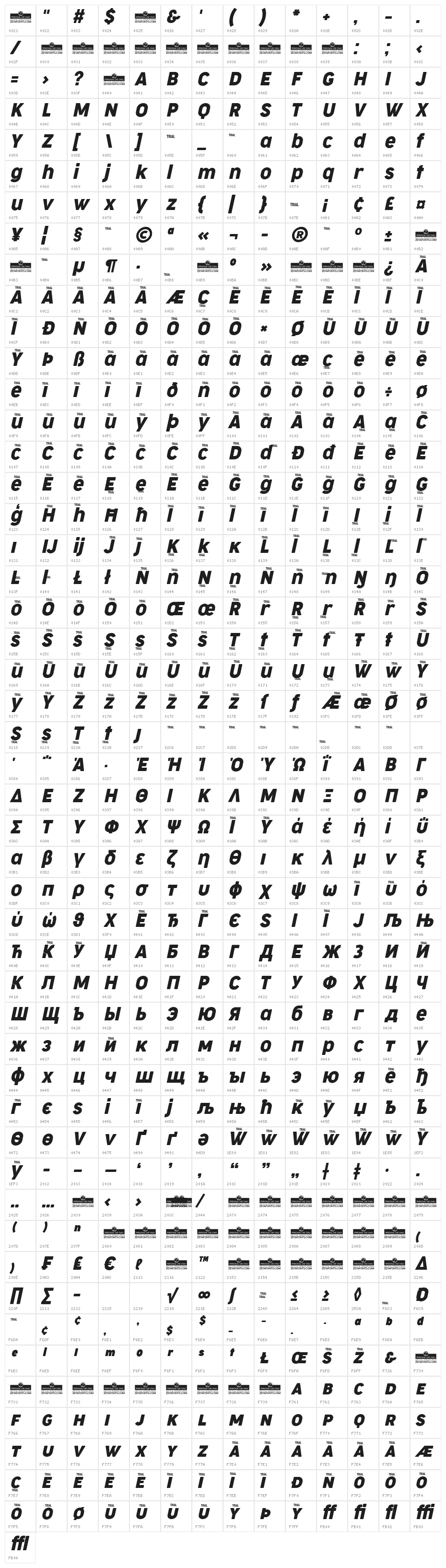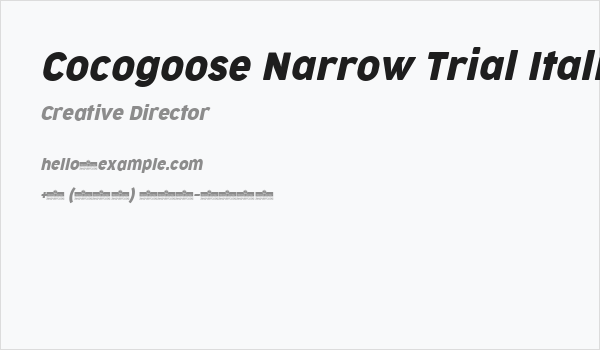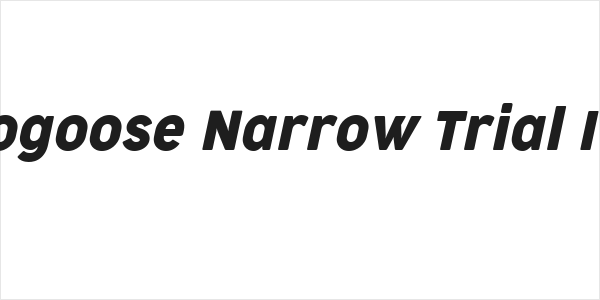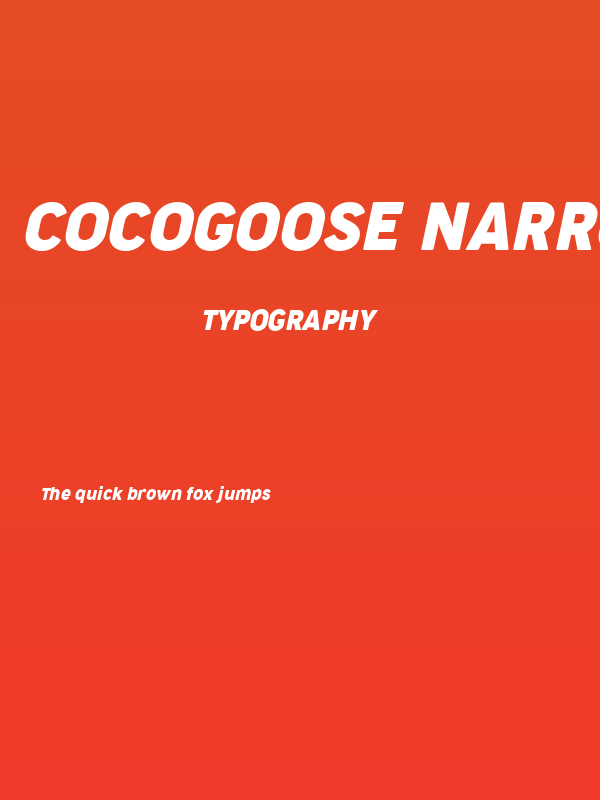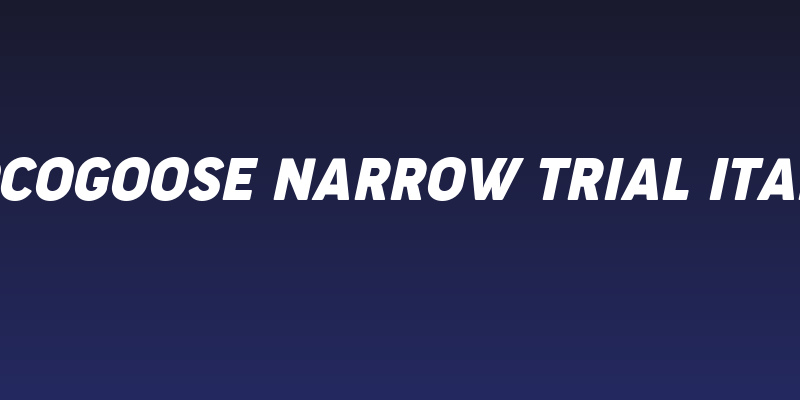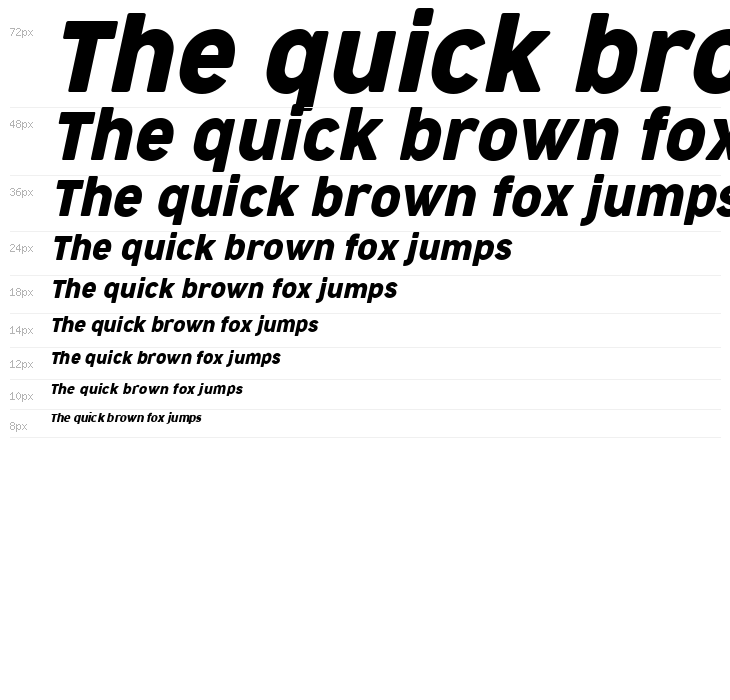
Cocogoose Narrow Trial Italic Font
Cocogoose Narrow Trial Italic Description
This font features a modern and sleek design with a narrow and italicized style. The characters are bold with a slight slant, giving them a dynamic and forward-moving appearance. The uppercase and lowercase letters maintain a consistent width, creating a uniform look across the text. The numerals and special characters are designed to match the overall aesthetic, ensuring a cohesive appearance in any text composition. The font's clean lines and contemporary feel make it suitable for various design applications.
| Proposed Projects | Ideal for branding, advertising, and editorial design where a modern and dynamic look is desired. |